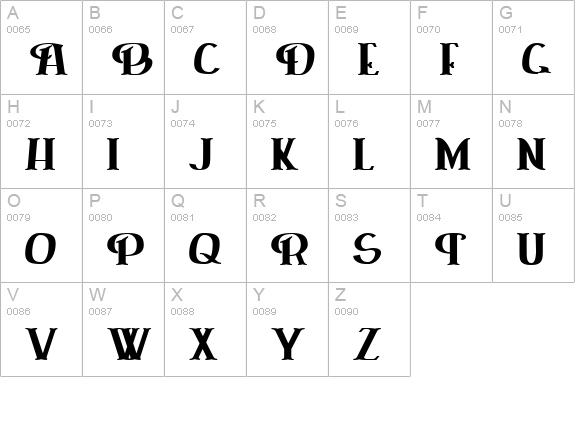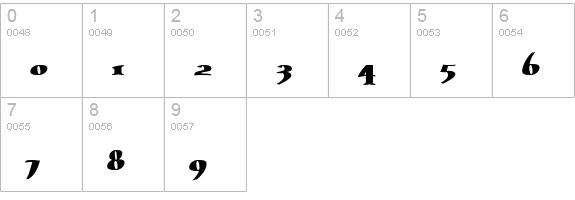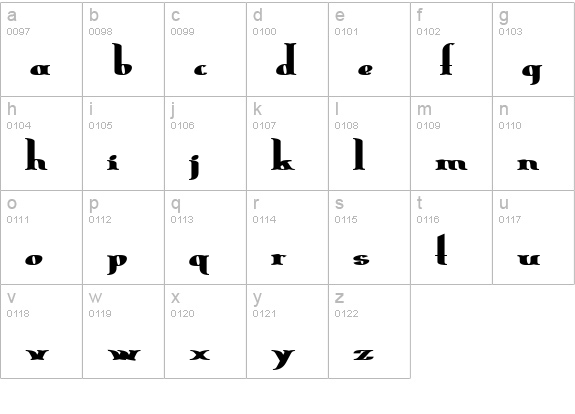
ErasmusInline Bold Font Details
ErasmusInline Bold is a strong, high-contrast variant in the ErasmusInline typeface family \xE2\x80\x94 well suited to headlines, attention-grabbing titles, and strong calls-to-action.
ErasmusInline Bold font is a striking and modern typeface that commands attention with its bold and dynamic presence. The sleek design of this font exudes confidence and sophistication, making it perfect for headlines, titles, and other prominent text elements. The strong, clean lines of ErasmusInline Bold lend a sense of authority and professionalism to any project it is used in. What makes ErasmusInline Bold even more appealing is that it is available for free download at FontsMarket.com. This means that you can easily access this high-quality font without any cost, making it a valuable addition to your font library. Whether you're working on a print design project, digital media, or anything in between, ErasmusInline Bold is sure to make a bold statement and elevate the overall look and feel of your work. Download it now and see for yourself the impact this font can have on your designs.